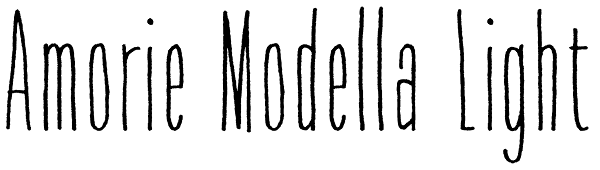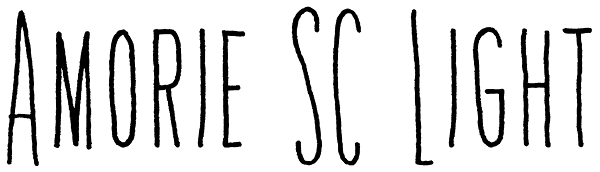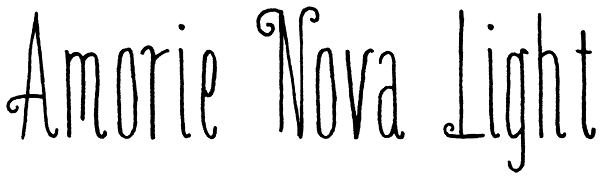
Amorie
Amorie is a tall and skinny hand drawn font. It comes in various weight and styles, and with an array of opentype options. Built to appear completely hand crafted, different designers could produce completely different results, selecting either...